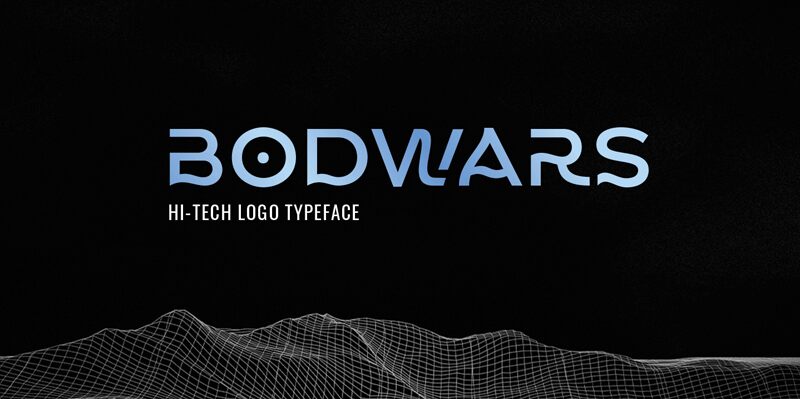
Bodwars, a display font crafted by Saridezra, stands out with its expanded width and bold presence. The design of Bodwars exudes confidence and strength, featuring robust letterforms that command attention on any canvas. Its distinct aesthetic combines contemporary flair with a touch of vintage, making it versatile for an array of creative applications.
The font's generous spacing and solid structure offer excellent readability, while its pronounced characters make a striking statement in headlines, branding, or promotional materials. The expansive nature of Bodwars lends itself exceptionally well to artistic projects where a sense of impact is desired without compromising on clarity.
Whether you're designing for print media or digital platforms, Bodwars is poised to elevate your visual narrative with its standout style and formidable charm.